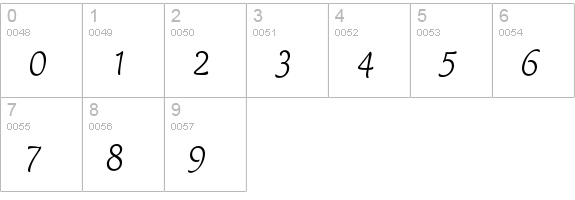
Club Type Mercurius Light Italic is a refined, elegant, italic variant in the Club typeface family \xE2\x80\x94 well suited to elegant body text, refined sub-headings, and luxury branding.
Club Type Mercurius Light Italic is a sophisticated and elegant font that exudes a sense of modernity and style. Its sleek and slender letterforms give off a refined and professional look, making it perfect for a wide range of design projects. The italicized nature of the font adds a touch of flair and sophistication, making it ideal for creating eye-catching headlines or adding emphasis to your text. What makes Club Type Mercurius Light Italic even more enticing is that it is available for free download at FontsMarket.com. This means that you can easily access this high-quality font without having to spend a dime. Whether you are working on a personal project or a professional design, Club Type Mercurius Light Italic is a versatile and stylish font that is sure to elevate your work to the next level. Download it today and add a touch of elegance to your designs.